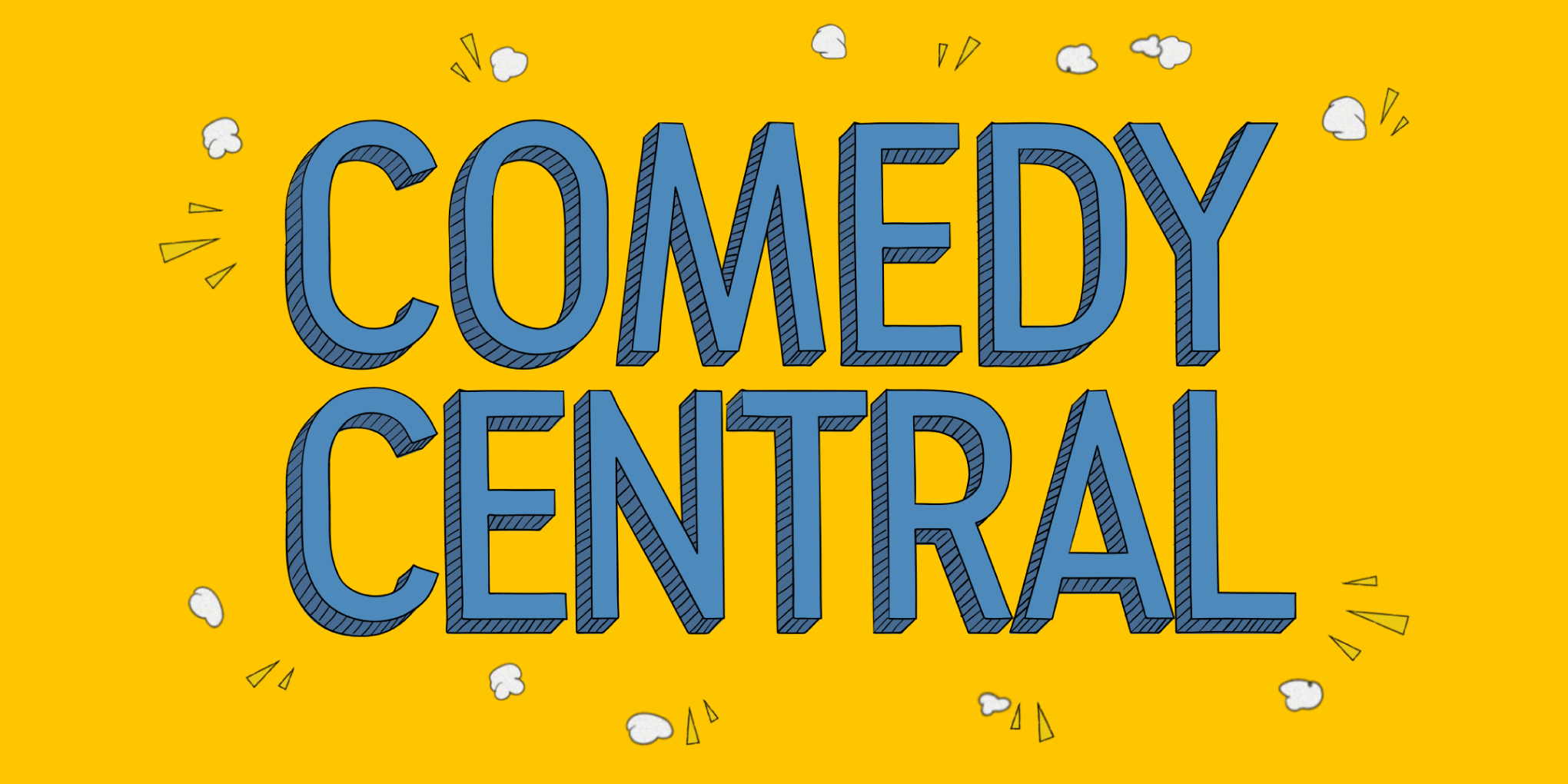
What do you do for a client whose launch date is April Fool’s Day? The first step is to find the core of who they are: to them, humor is life, levity is necessary, and everything is funny. But as any great comedian will tell you, timing is everything. That quiet pause or lull in the dynamics is needed to appreciate humor’s full force. So from a branding standpoint, the commercials, scheduling, and bumpers provide the platform upon which the shows themselves are served up as the punchlines.
loyalkaspar’s branding work for Comedy Central grabbed onto its full potential when they commissioned Type Network for this project. Type Network represents some of the top independent type designers in the world. They connect agencies with the right match for their custom type needs, which is precisely what loyalkaspar requested. Having previously collaborated well with foundry partner Dyana Weissman of Kerns & Cairns, this was a natural fit. Victoria Rushton provided assistance as the project grew in scope. Anna Minkkinen, loyalkaspar’s Executive Creative Director, was part of the team working closely with Weissman to outline the font family’s voice, the styles needed, and the “right amount of wrong” it should contain.
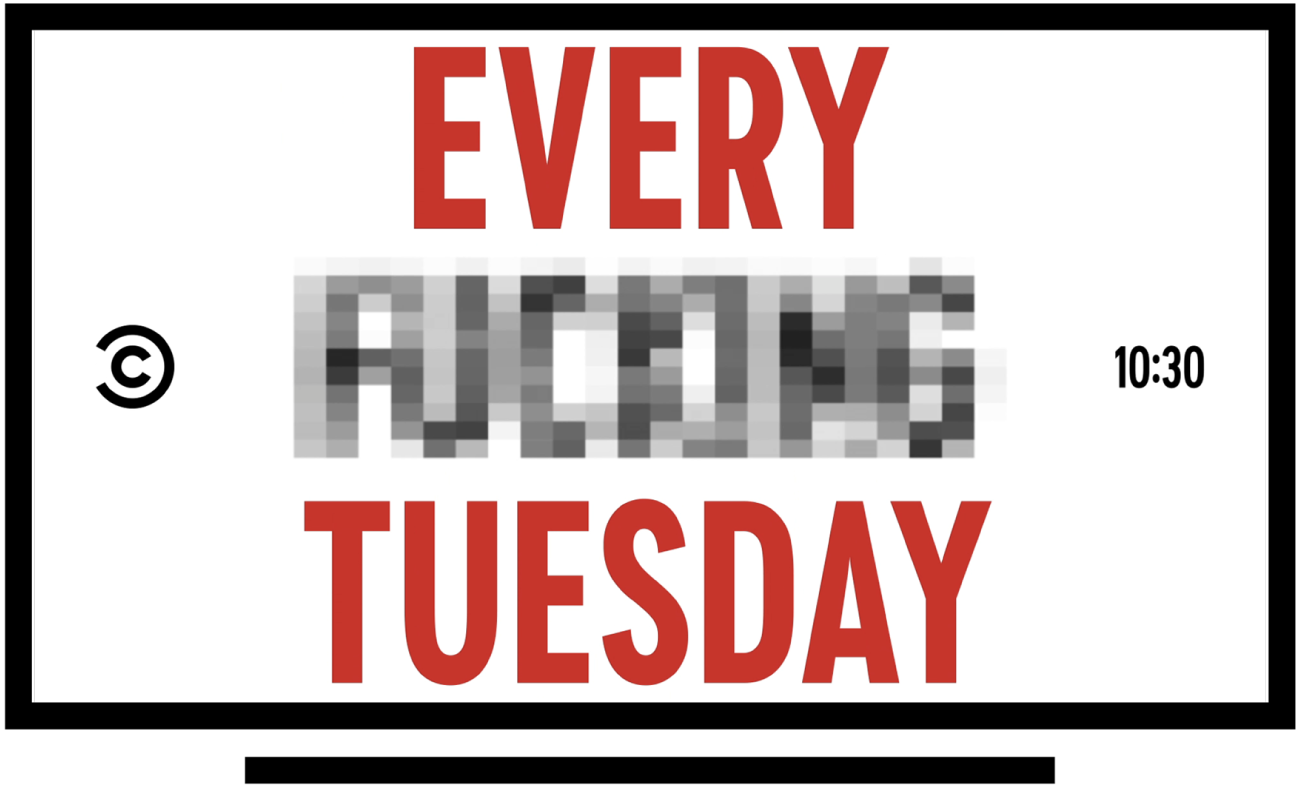
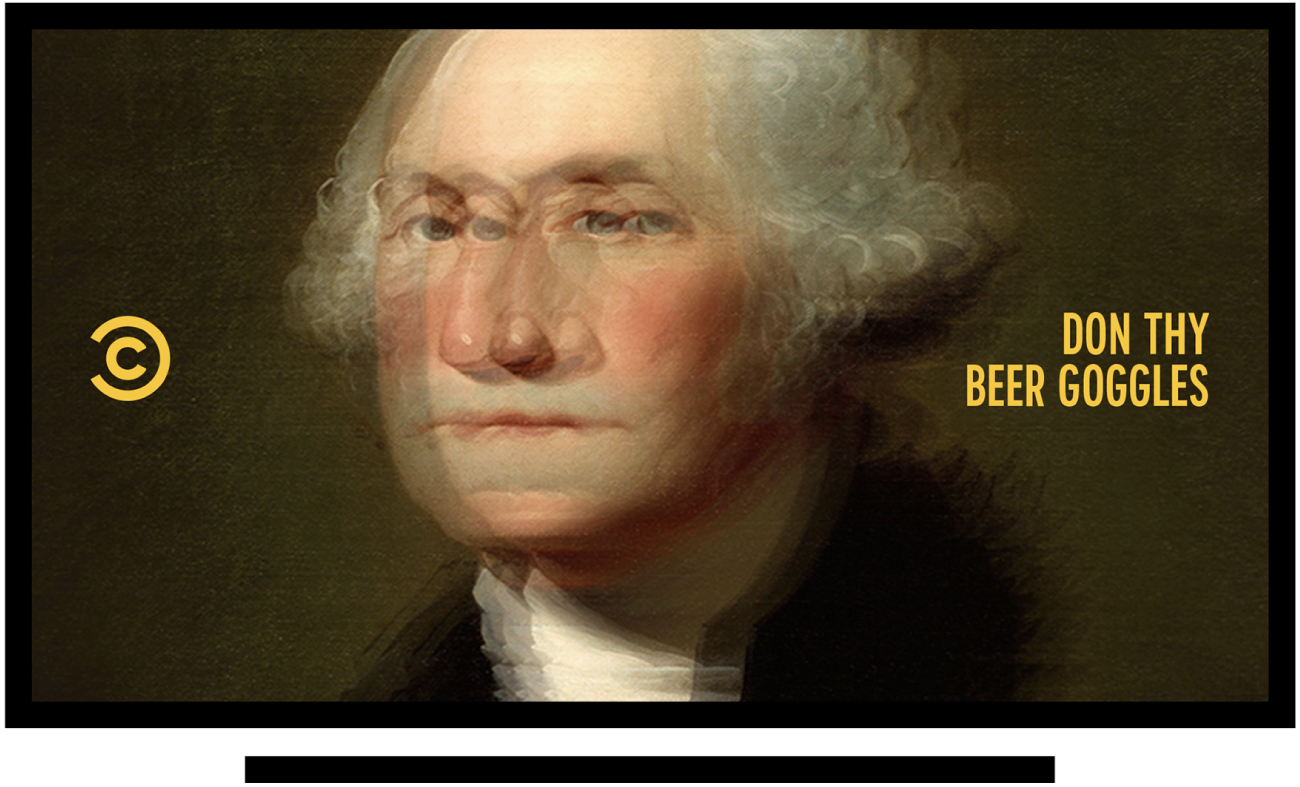
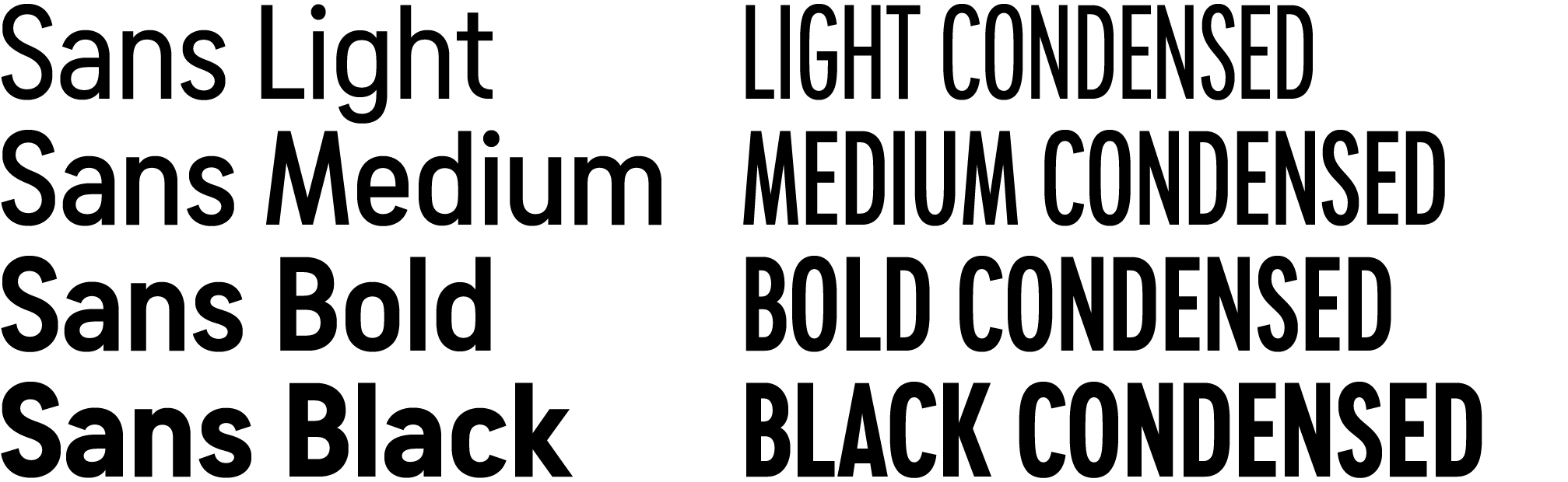
Comedy Sans, in two widths commissioned by loyalkaspar for Comedy Central.
The strongest commitment guiding the entire process was that a custom typeface is a core solution to build brand trust and cement a distinct voice for the long haul. Unsurprisingly, custom type helps define the voice of a brand, especially in a fluid media landscape and across many platforms. Type Network and its foundry partners are adept at turning rough sketches into working fonts. Weissman says, “I do my best to put clients at ease about terminology, walk them gently through the process, and make it fun, interesting, and painless.” With these branding and conceptual pieces in place, the main direction for Comedy Sans was set.
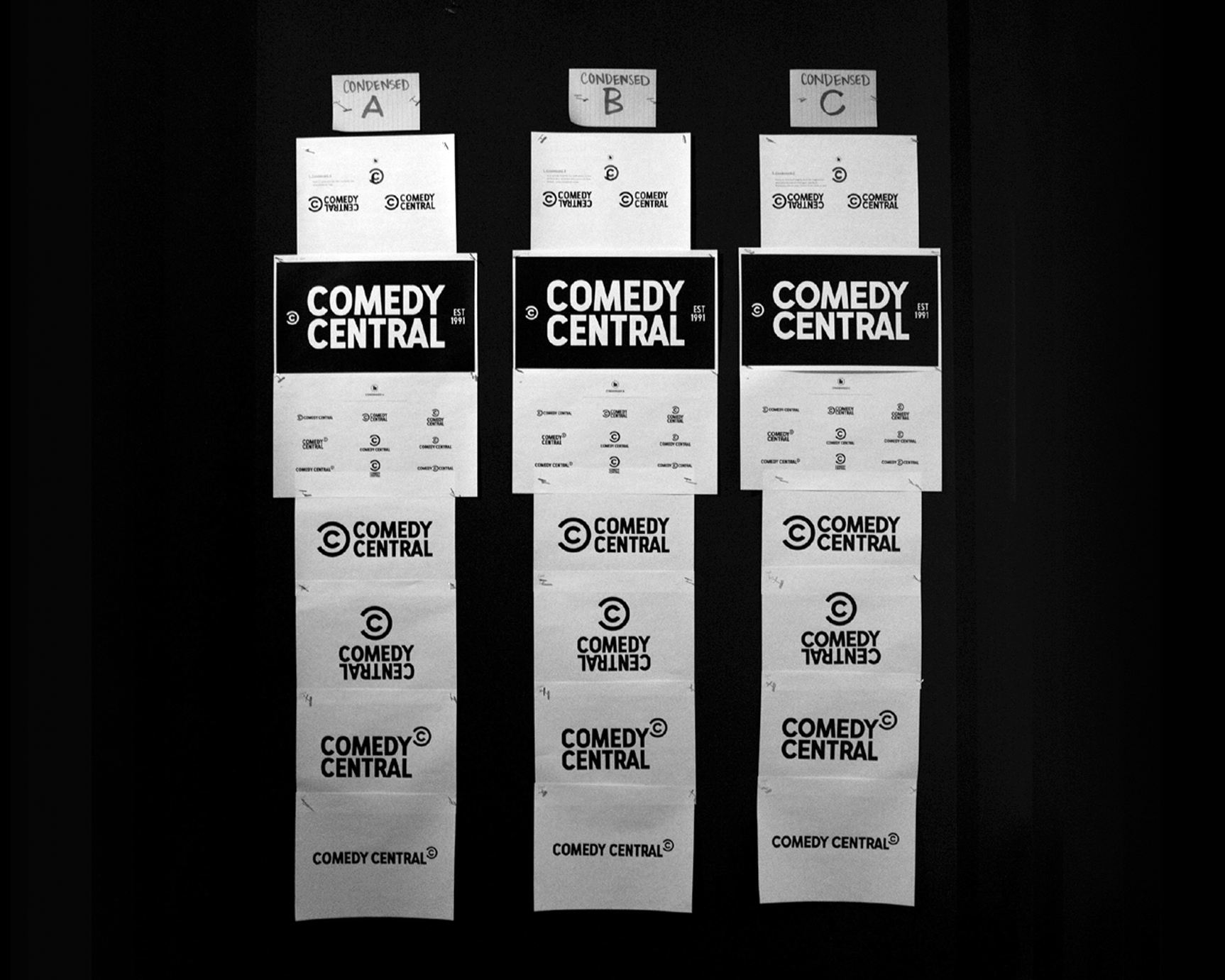
As the font came together it became clear that the logo would need to be updated and informed by the custom typeface, particularly the rounded letters that needed to be more consistent.
Early sketches of Comedy Sans veered toward a “reverse stress” family that was heavy on the top and bottom of each glyph. In use, with the sparse amount of words shown at any given point in time, viewers had to be able to immediately recognize each glyph, so this direction was abandoned in favor of something more understated, easier to set in all caps, and that would render more consistently across platforms. Importantly, it needed to be at home in an ever-present supporting role since the typeface is the setup and not the punchline.
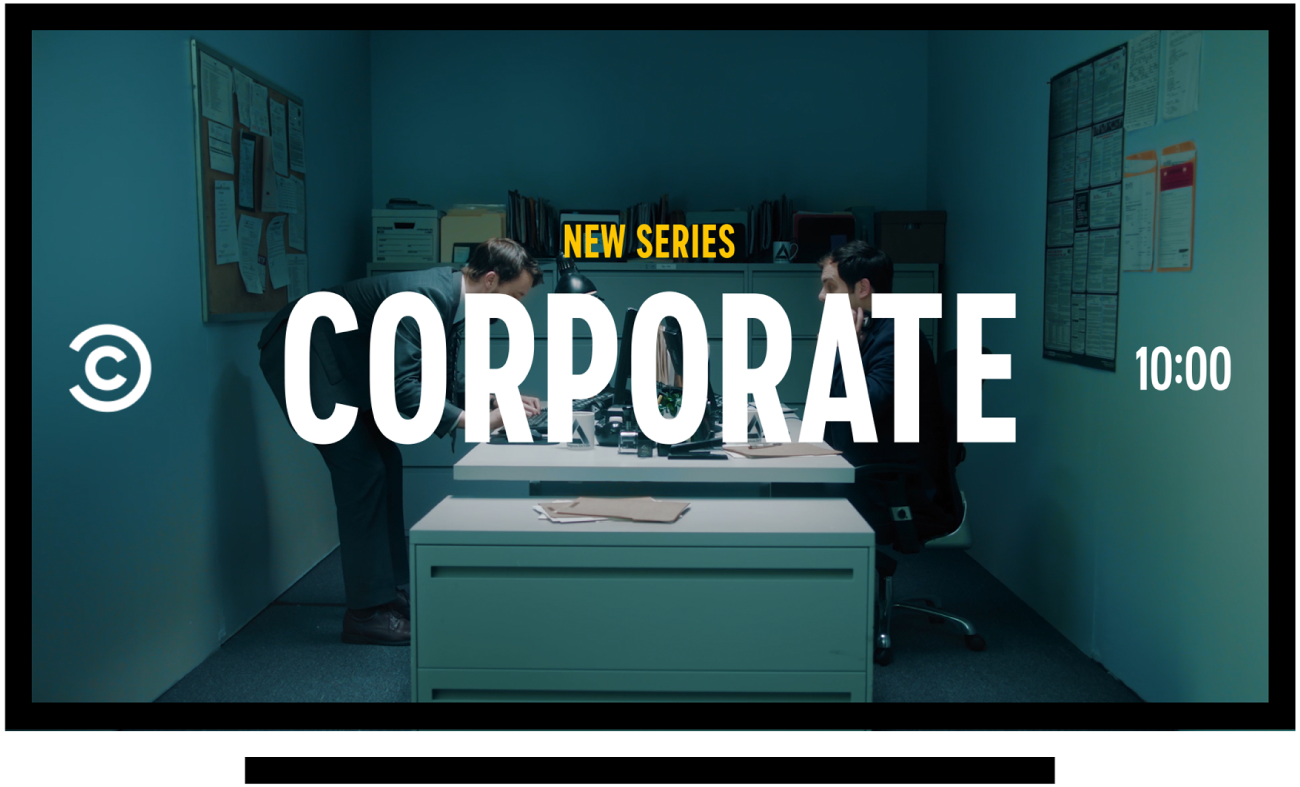
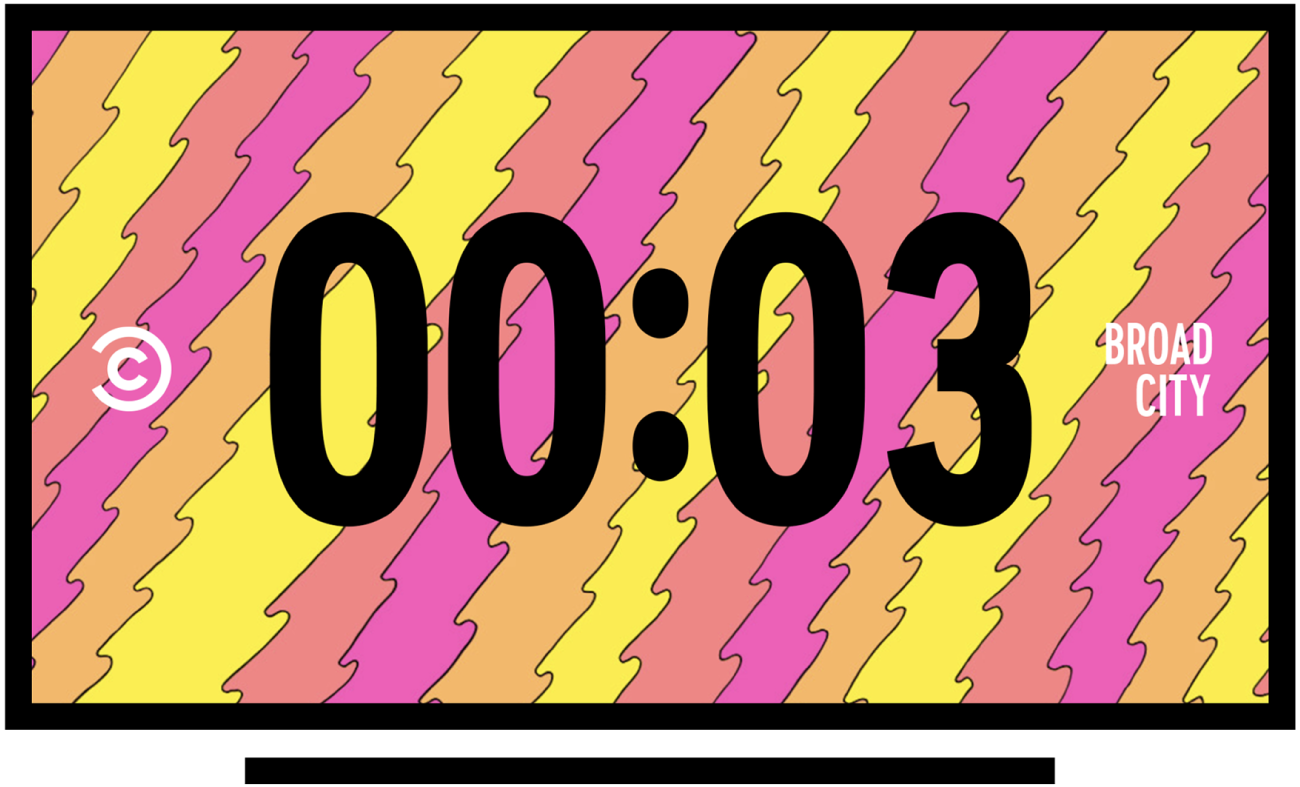
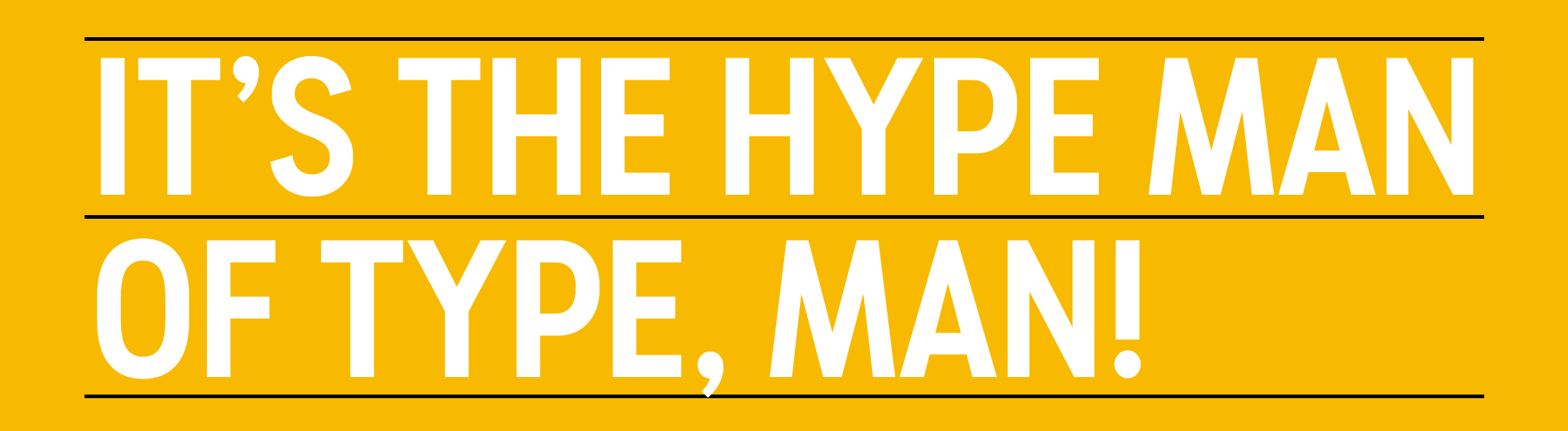
The result is the eight style Comedy Sans font family that has won awards, increased Comedy Central’s brand recognition, and proven how useful it is for the range of tones needed across different media platforms. Funny enough, hard work pays off.